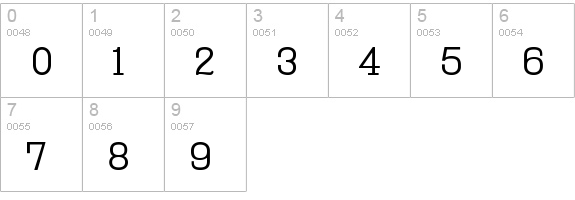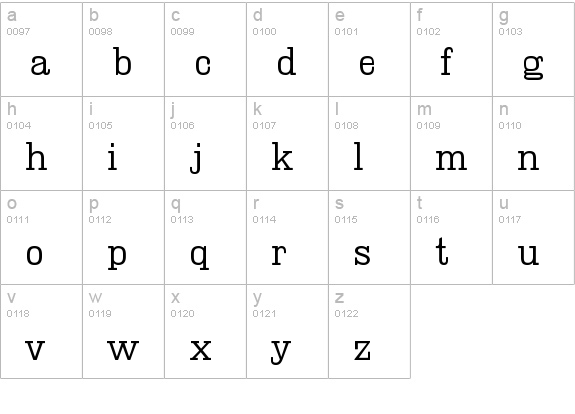
Deadwood Doublewide Light is a refined, elegant variant in the Deadwood typeface family \xE2\x80\x94 well suited to elegant body text, refined sub-headings, and luxury branding.
Introducing Deadwood Doublewide Light font, a striking and versatile typeface that exudes rustic charm and vintage appeal. Crafted with meticulous attention to detail, this font features a unique doublewide design that adds a touch of character to any project. With its clean lines and stylish flair, Deadwood Doublewide Light is perfect for a wide range of applications, from branding and packaging to posters and social media graphics. Whether you're looking to create a bold headline or add a touch of whimsy to your designs, this font is sure to make a statement. Best of all, Deadwood Doublewide Light is available as a free download at FontsMarket.com. Simply visit the website to access this stunning font and take your designs to the next level. Don't miss out on the opportunity to add this versatile typeface to your font collection today!